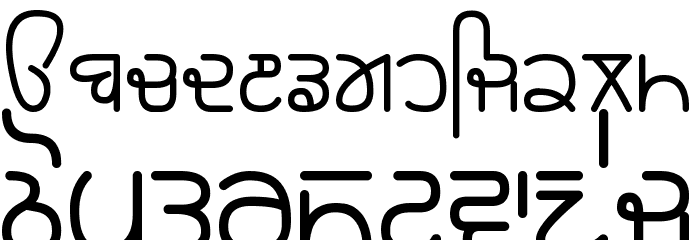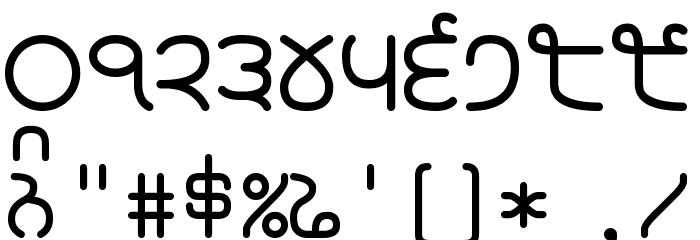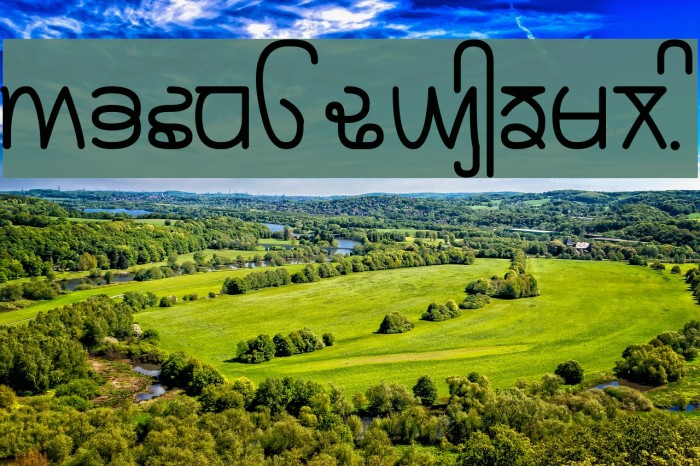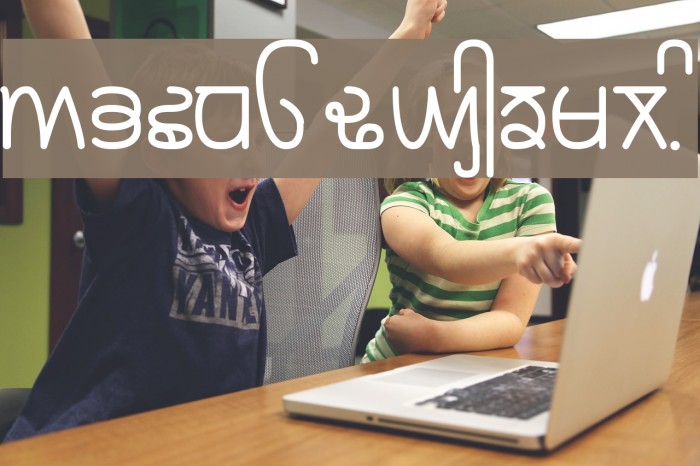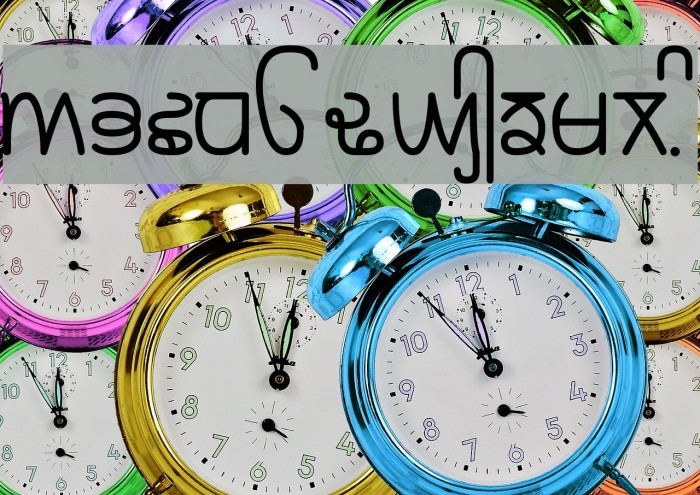
Rupe Medium Font
This font features a unique and decorative style with a modern twist, characterized by its rounded and flowing letterforms. The characters exhibit a playful yet sophisticated appearance, with smooth curves and a consistent stroke width that adds to its legibility. The font's design includes distinctive elements such as elongated ascenders and descenders, which contribute to its dynamic and engaging look. The overall aesthetic is both artistic and functional, making it suitable for a variety of creative applications. Its balanced proportions and clear structure ensure readability while maintaining a visually appealing presence.
A modern, decorative font with rounded, flowing letterforms and consistent stroke width.
- Proposed Projects: Ideal for branding, packaging, posters, and creative digital projects where a unique and artistic touch is desired.